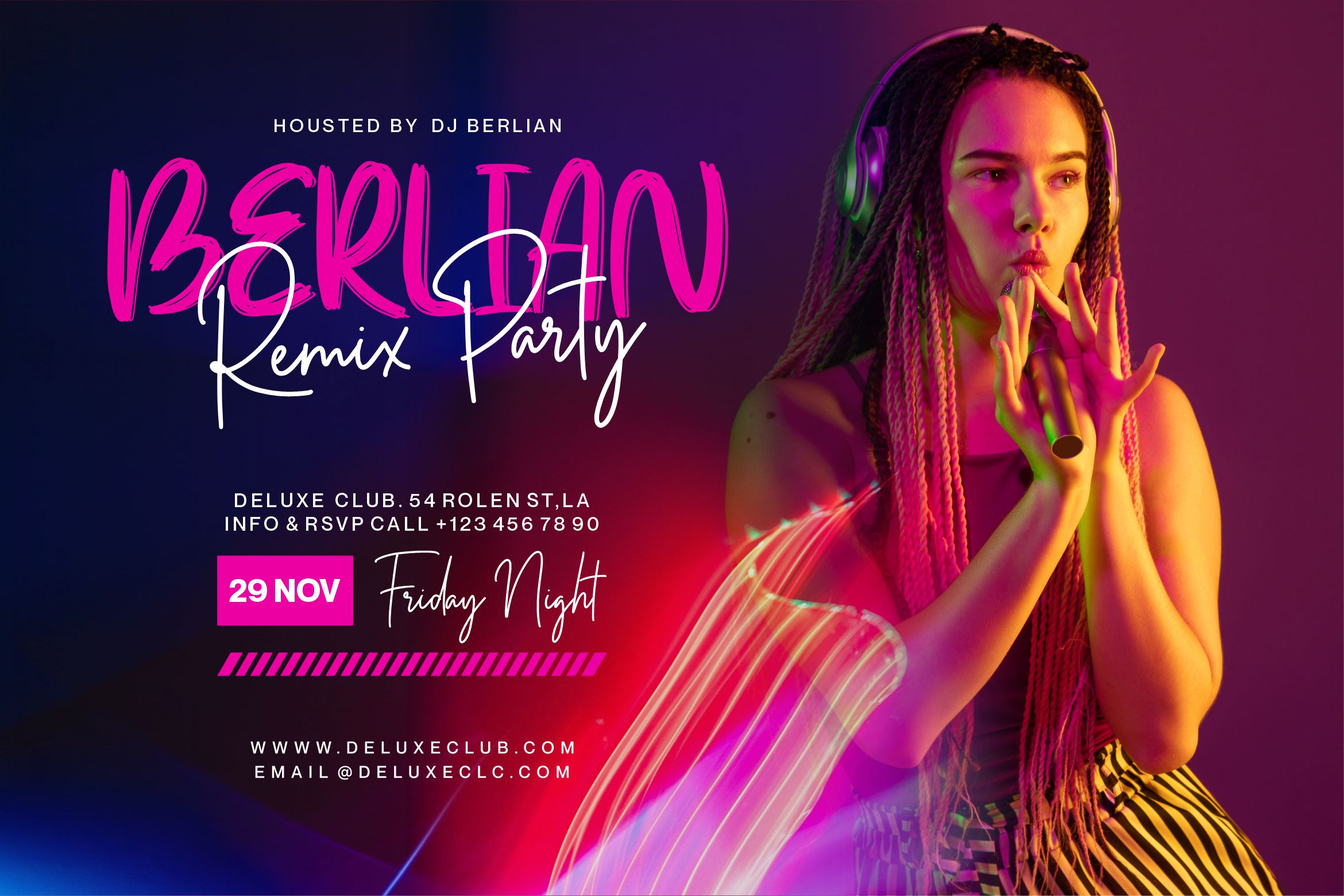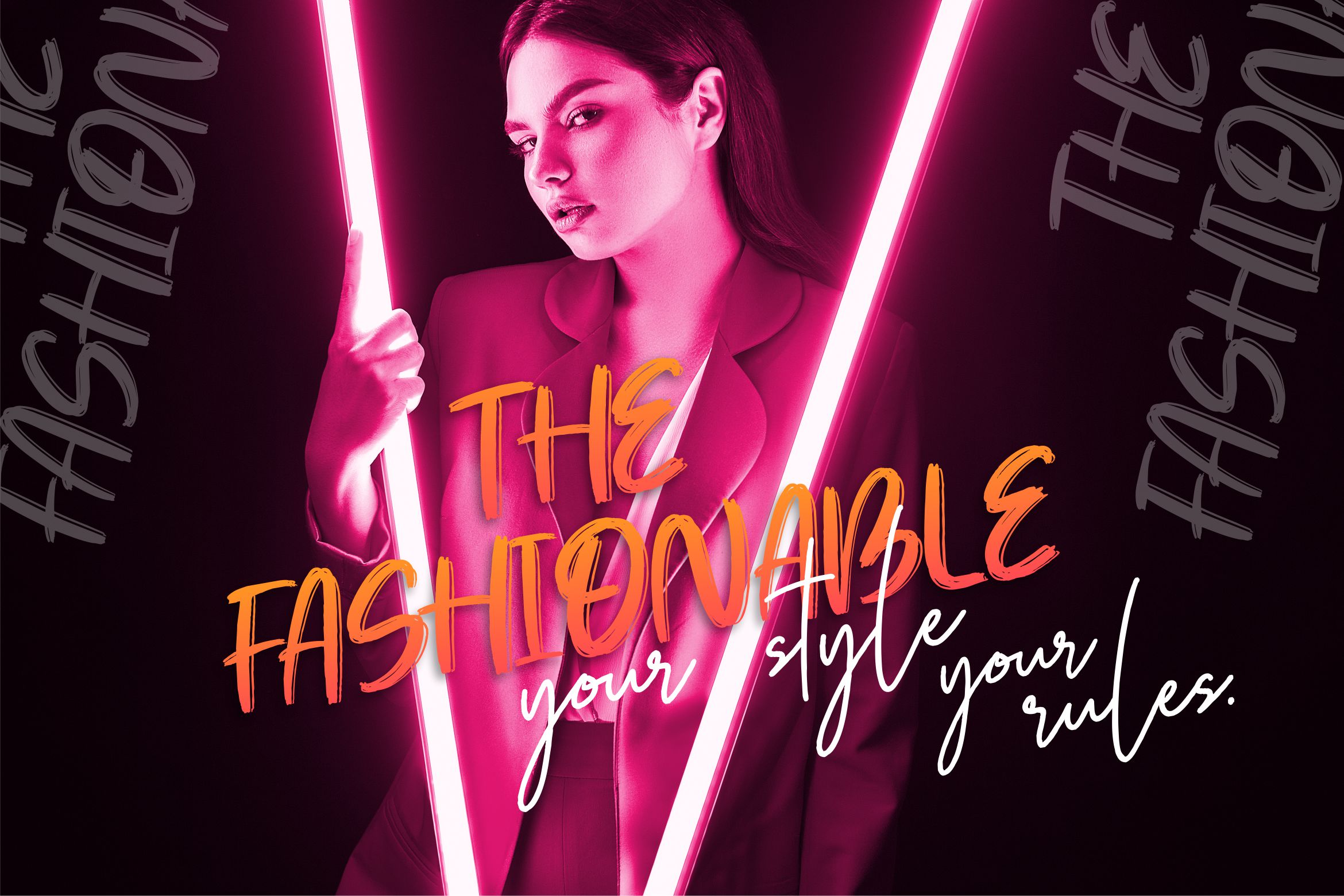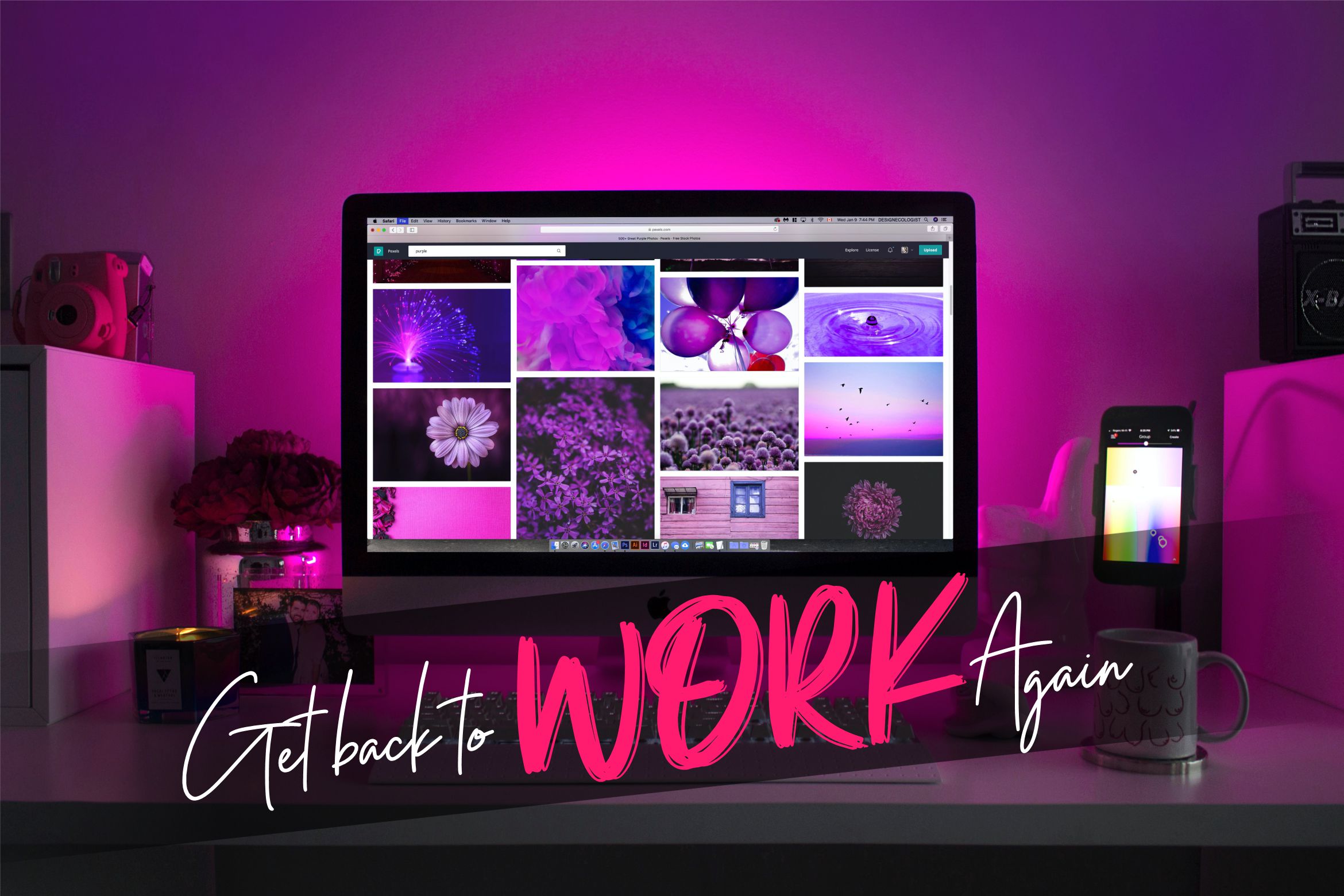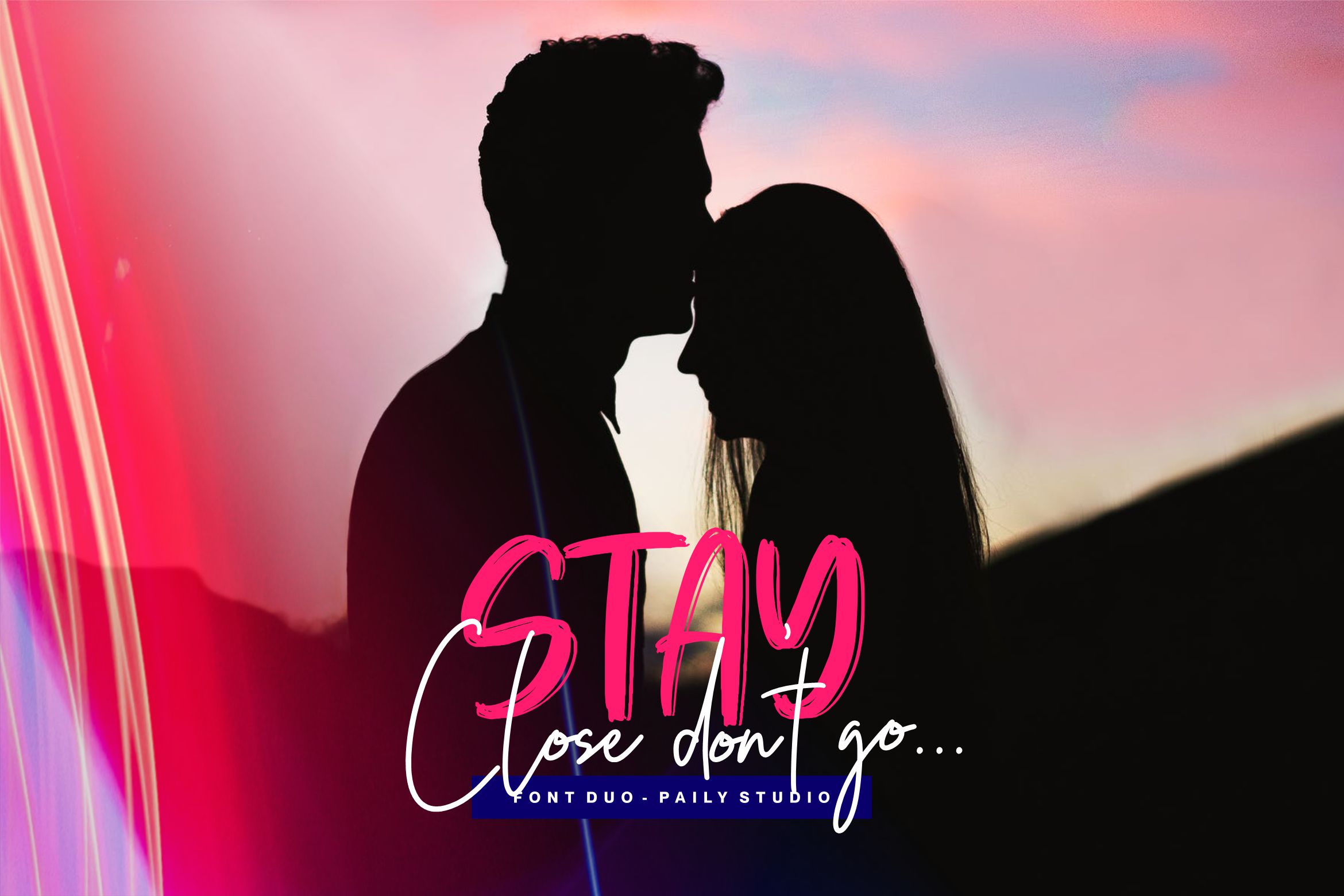
HARD Streed is a Font Duo.
Hard Streed is a magical script and display duo font carefully created with a touch of elegance. Whether you’re looking for fonts for Instagram or calligraphy scripts for DIY projects, this font will turn any creative idea into a true piece of art!